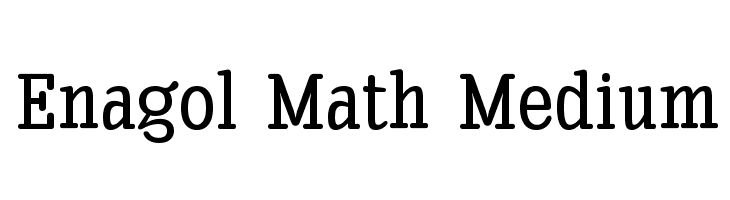
• Enagol Math Medium Fuentes
( deFharo - Fernando Haro - defharo.com )
A bold, modern serif font with strong, balanced letterforms.
• Enagol Math Medium Italic Fuentes
( deFharo - Fernando Haro - defharo.com )
Elegant serif font with medium weight and italic style.
• ENCAN WAU Fuentes
A bold, hand-drawn font with an expressive and dynamic style.
• ENCHAN Regular Fuentes
( Naveen Chandru )
A futuristic, geometric font with a stencil-like appearance and sharp angles.
• Enchant Fuentes
( Fonts by Moove Studio )
A lively handwritten font with elegant, flowing characters and medium contrast.
• Enchanted Land Fuentes
• Enchanted Land DS Fuentes
( Fonts by Sharkshock )
A bold, decorative blackletter font with intricate and ornate letterforms.
• enchantee Fuentes
A bold, expressive script font with a handwritten style.
• Enchiridion Fuentes
An ornate and decorative blackletter-style font with intricate details.